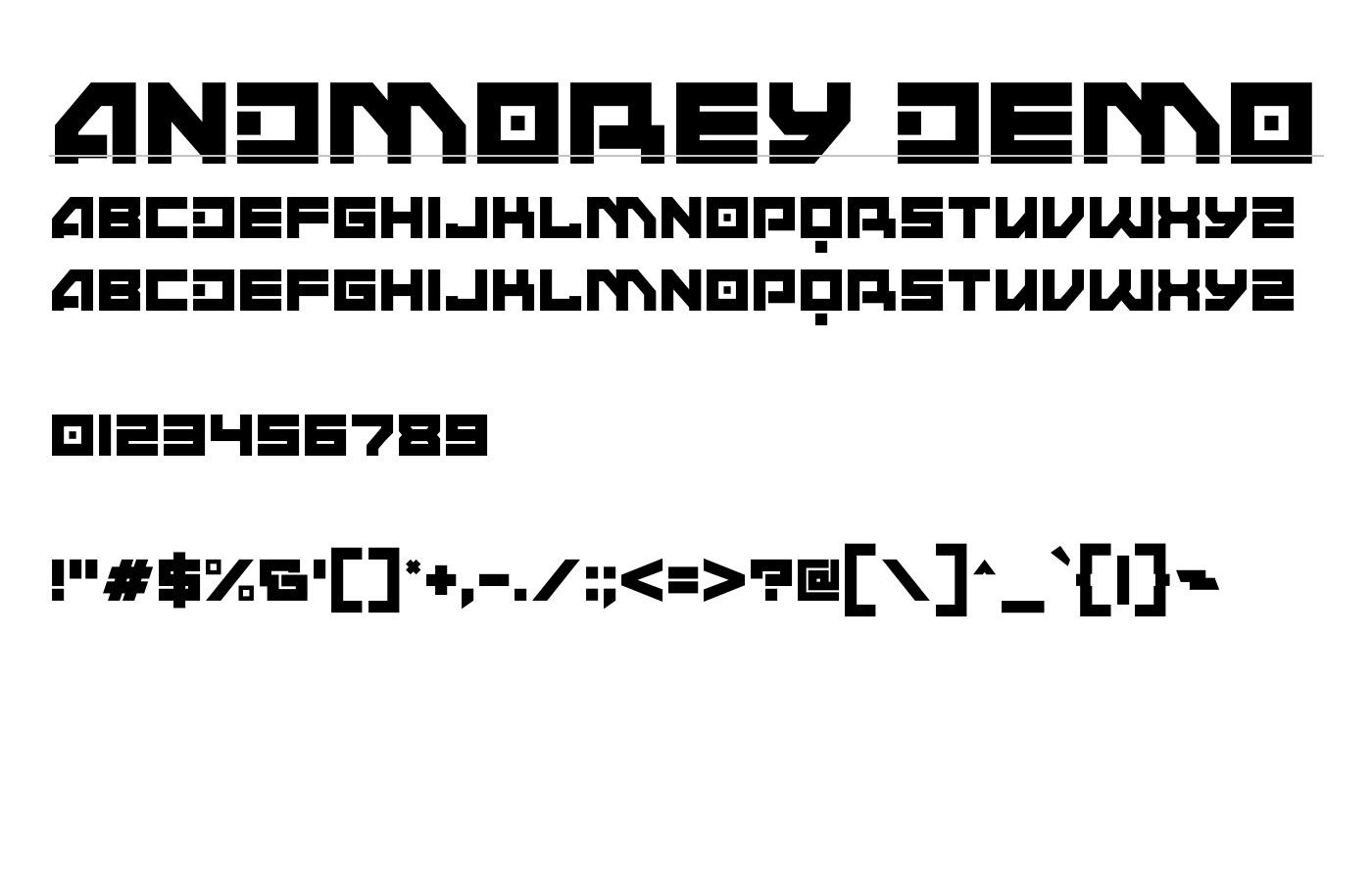
ANDMOREY is a bold, geometric sans serif font with a strong, futuristic vibe, featuring sharp angles and a blocky structure that gives it a tech-inspired, modern appearance. Its condensed width, high x-height, and uniform stroke weight make it ideal for impactful headlines, logos, and branding that demand a striking, avant-garde style. This font works best in creative digital projects, posters, and packaging where a bold, edgy statement is desired.
ANDMOREY Font
About ANDMOREY Font